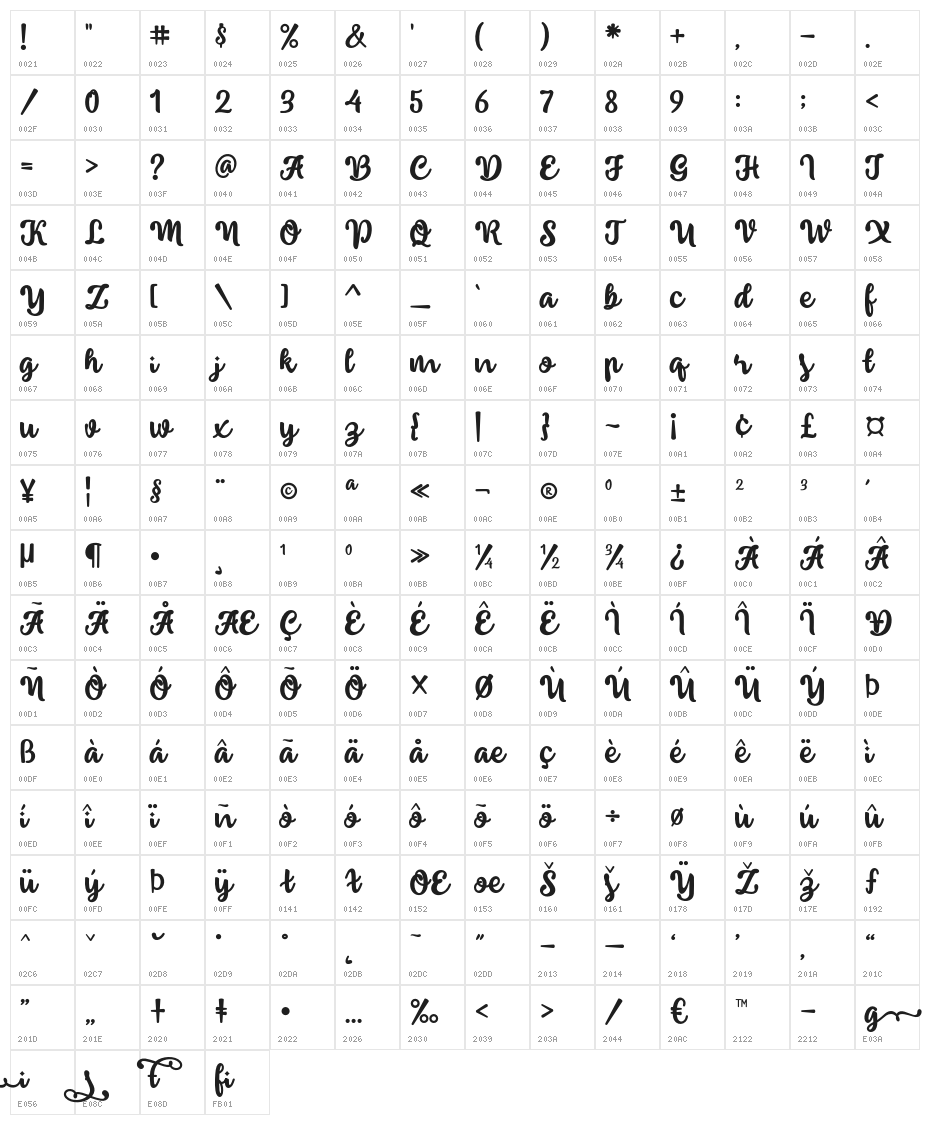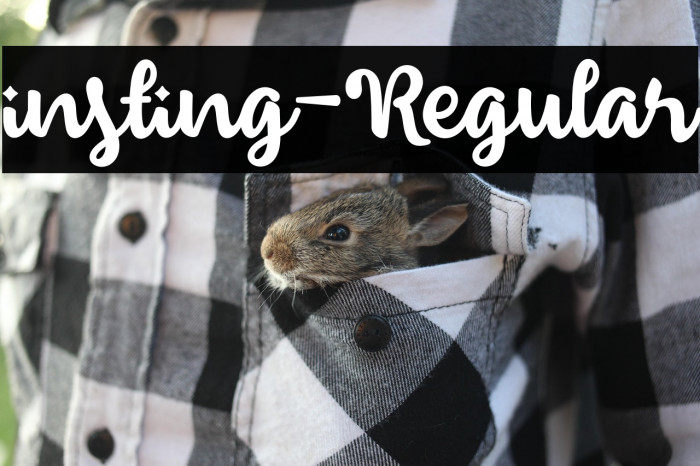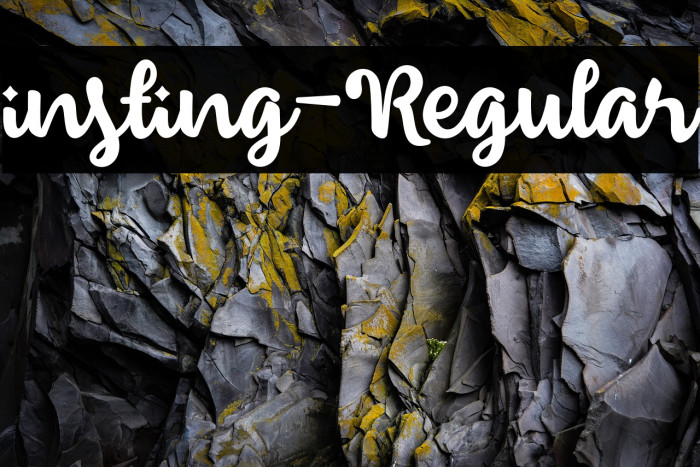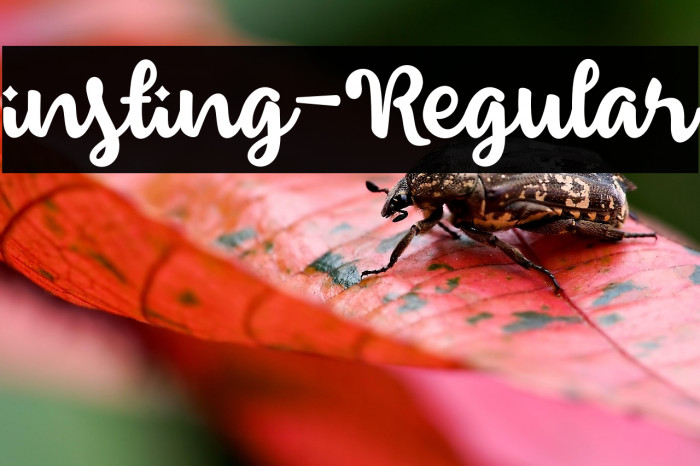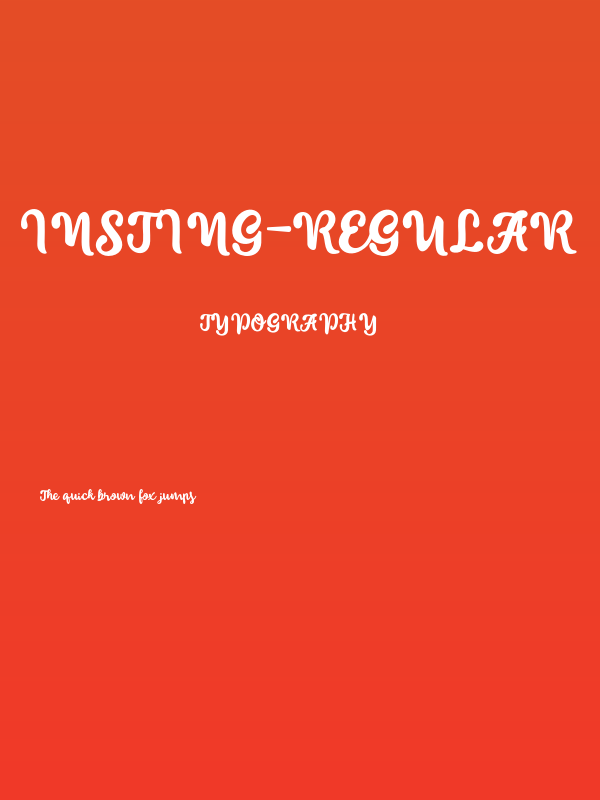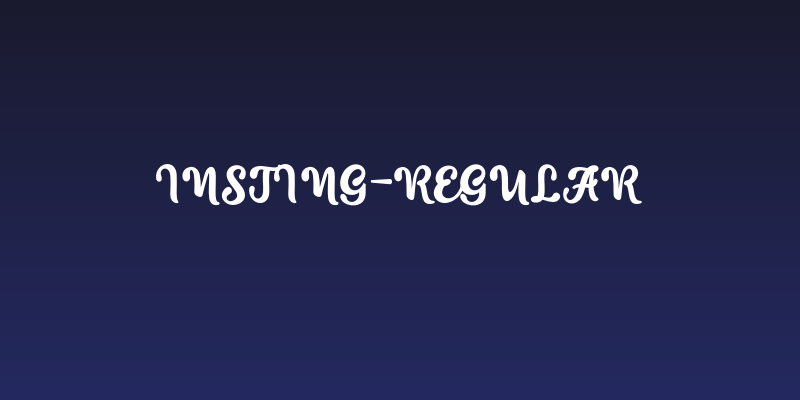
insting-Regular Font
insting-Regular Description
This font features a playful and bold script style with a handwritten feel. The letters are connected in a flowing manner, giving it a dynamic and lively appearance. The uppercase letters are slightly more structured, while the lowercase letters have a more casual, freeform look. The numbers and special characters maintain the same playful style, making them cohesive with the alphabet. The overall design is suitable for projects that require a touch of whimsy and creativity.
| Overall Style | Playful, Handwritten |
| Use Case | Logos, Headlines, Invitations |
| Proposed Projects | Ideal for greeting cards, playful branding, children's books, and creative invitations. |